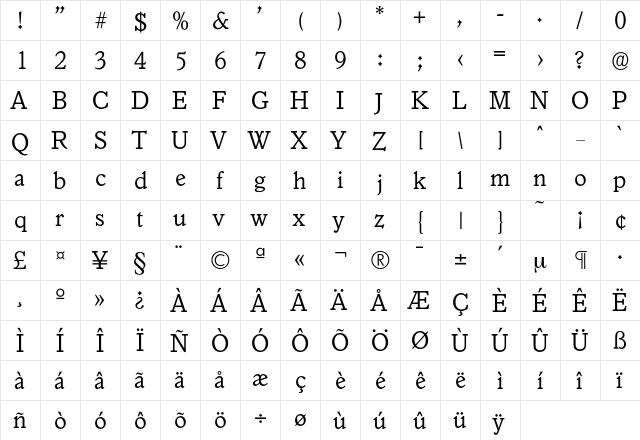
Granada-Light Regular
Design Context for Granada-Light Typeface
Granada-Light takes a measured approach to typography — its balanced proportions and neutral character make it a reliable workhorse for both digital and print work. The delicate stroke weight brings airiness and refinement to layouts.